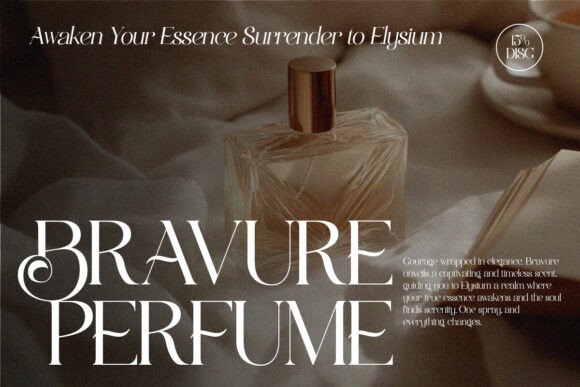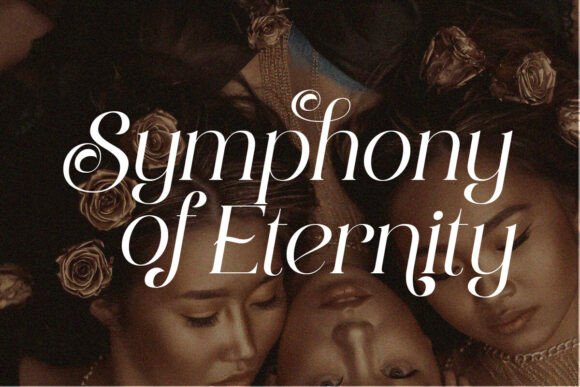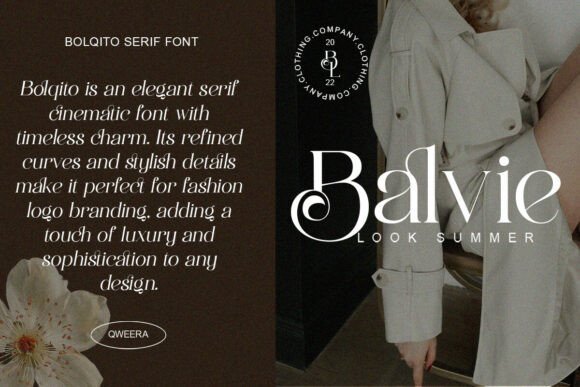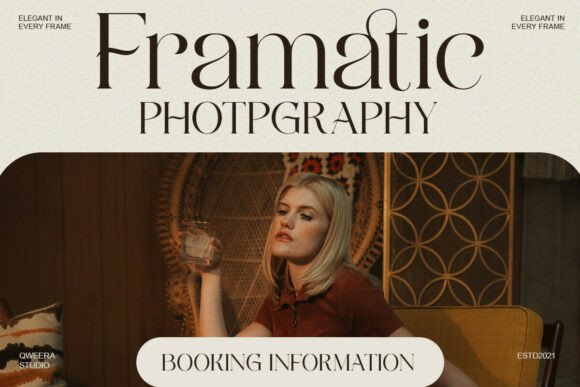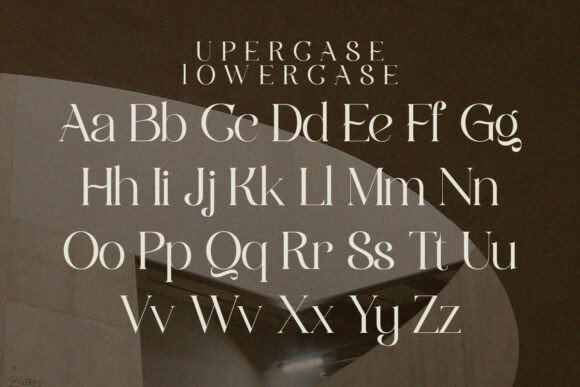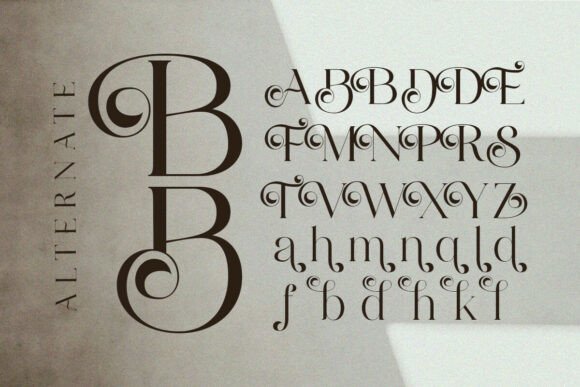
The Elusive Quest for Luxury: How Bolqito Font Became My Go-To for High-End Designs
I still remember the design project that led me to Bolqito font. I was working on a luxury fashion brand’s rebranding, and my client requested a font that exuded elegance, sophistication, and high-end style. I scoured the internet, tried countless fonts, but nothing seemed to fit the bill. That was until I stumbled upon Bolqito. Its sleek curves, modern contrast, and artistic ligatures instantly caught my attention. I knew I had found the perfect match. In this article, I’ll share my experience with Bolqito, its features, and how to make the most of this stunning serif typeface.
What I Love About Bolqito ✨
- ✅ Timeless beauty: Bolqito’s classic serif design ensures it never goes out of style.
- ✅ Elite sophistication: The font’s sleek curves and modern contrast scream luxury and high-end fashion.
- ✅ Artistic ligatures: Bolqito’s ligatures add a touch of elegance to any design.
- ✅ PUA-encoded: Easy access to all glyphs, swashes, and alternate characters for effortless customization.
- 🤔 Occasional kerning issues: As with any font, some manual kerning adjustments might be necessary.
- ⚠️ Not ideal for body text: Bolqito’s luxurious feel is best suited for headlines, titles, and short paragraphs.
The Story Behind Bolqito: Designer Inspiration
Bolqito was crafted with the goal of creating a typeface that embodies the essence of luxury and sophistication. Its designer aimed to create a font that would be both timeless and modern, with a unique blend of classic serif elements and contemporary flair. The result is a font that exudes elegance and refinement, perfect for high-end designs.
| Font Name | Bolqito Font |
| Author | Qweera Studio |
| What is Bolqito font best suited for? | Luxury branding, fashion magazines, perfume packaging, invitations, and high-end product design. |
| Is Bolqito font PUA-encoded? | Yes, Bolqito is PUA-encoded, making it easy to access all glyphs, swashes, and alternate characters. |
| Can I use Bolqito for body text? | While Bolqito can be used for short paragraphs, it’s primarily designed for headlines and titles. |
| Is Bolqito font suitable for digital use? | Yes, Bolqito is optimized for both print and digital use, making it versatile for various design projects. |